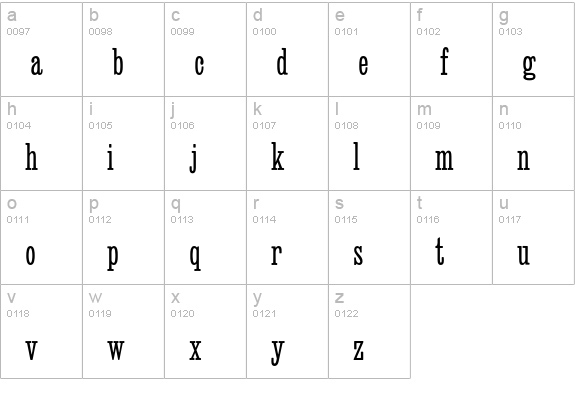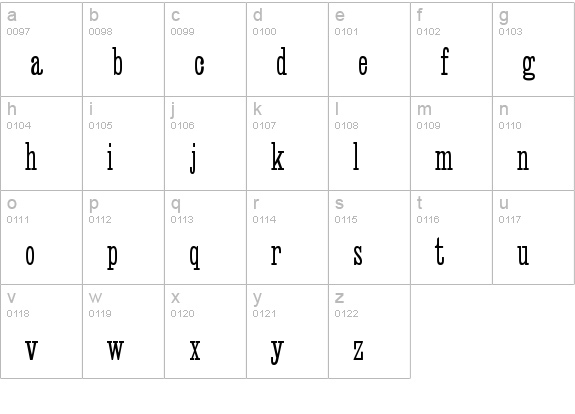
Deadwood Halfwide Light Font Details
Deadwood Halfwide Light is a refined, elegant variant in the Deadwood typeface family \xE2\x80\x94 well suited to elegant body text, refined sub-headings, and luxury branding.
The Deadwood Halfwide Light font is a charming and versatile typeface that exudes a sense of rustic elegance. Its slender and slightly condensed design makes it ideal for conveying a modern yet vintage aesthetic in various design projects. This font features clean lines and subtle serifs, adding a touch of sophistication to any text it graces. What sets Deadwood Halfwide Light apart is not only its aesthetic appeal but also its accessibility. This font is available for free download at FontsMarket.com, making it a valuable resource for designers, creatives, and typophiles alike. Whether you're working on branding, editorial design, or digital content, Deadwood Halfwide Light offers a unique and polished look that is sure to elevate your work. Embrace the timeless appeal of Deadwood Halfwide Light and bring a touch of classic elegance to your projects with this freely available font. Download it today and discover the endless possibilities it holds for your creative endeavors.